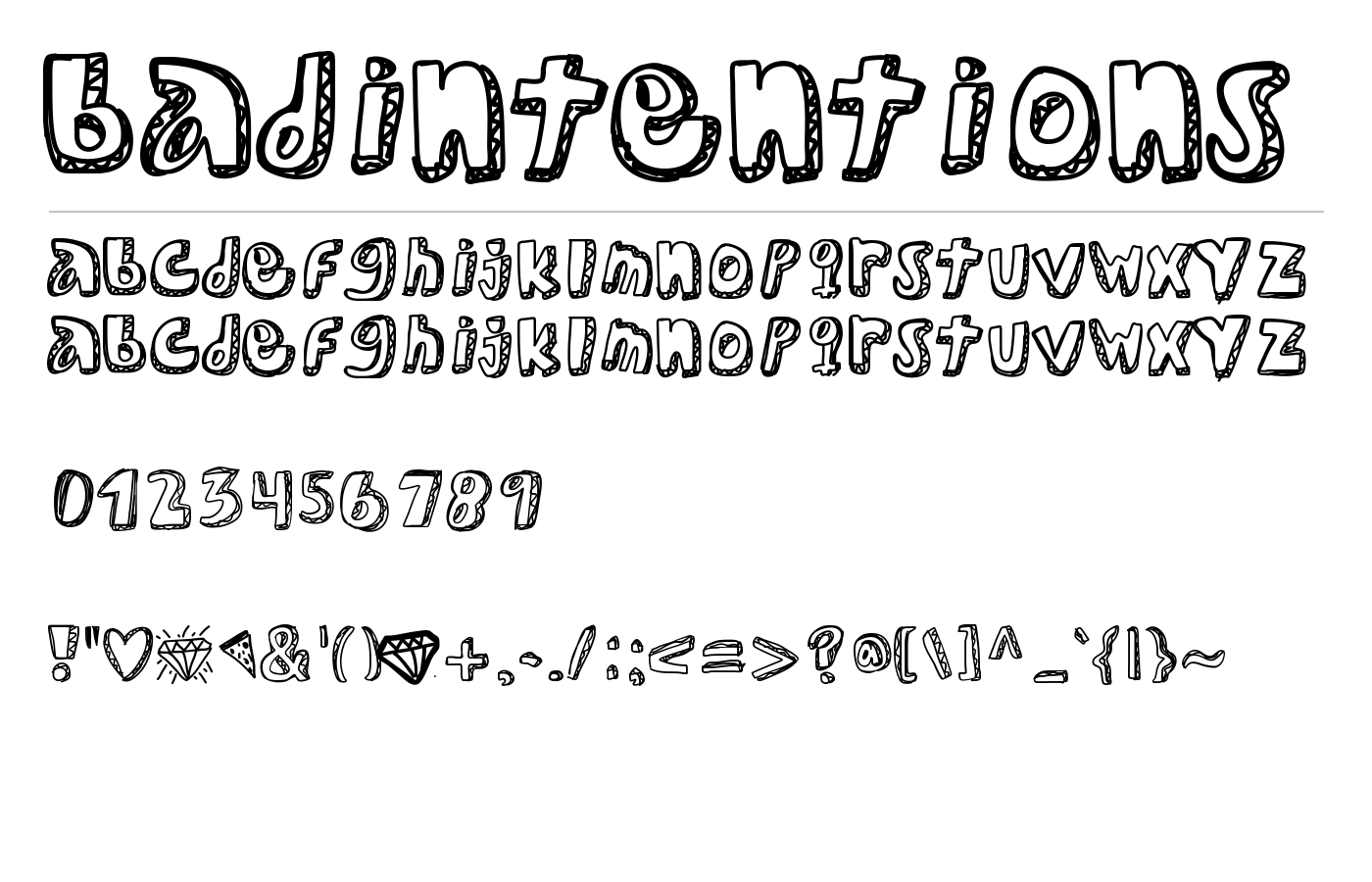
BadIntentions is a playful and quirky hand-drawn font with a bold, irregular outline and decorative textured fills that give it a fun, casual vibe. Its uneven strokes and charming imperfections make it ideal for creative projects, children's designs, or branding that wants to convey friendliness and whimsy. This font works great for headlines, posters, and packaging where a lively, informal personality shines through.
BadIntentions Font
About BadIntentions Font